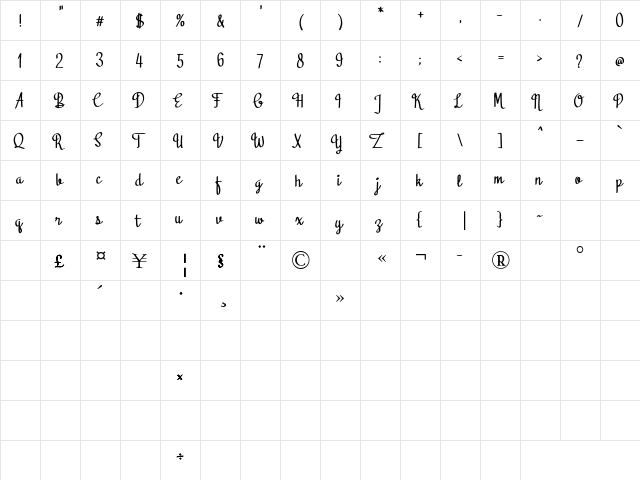
Black Sweet Regular
| Designer | @faldykudo |
Design Context for Black Sweet Typeface
Black Sweet is a composed and adaptable typeface that performs quietly and consistently across a wide range of design contexts.